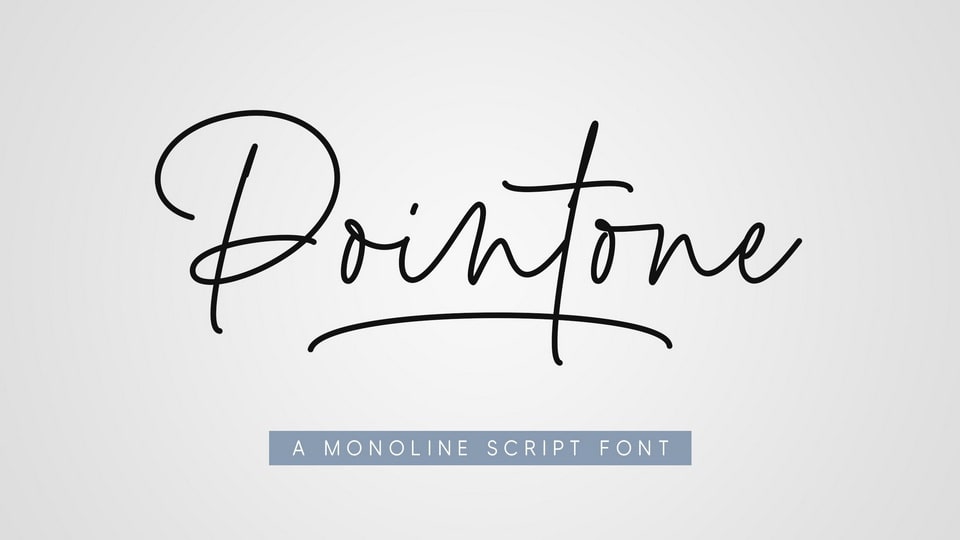
Download Pointone font, a stylish and well balanced monoline script typeface. Pointone font has a clean, thin and smooth vibe and it will be a hit for any design that you want to add it to.